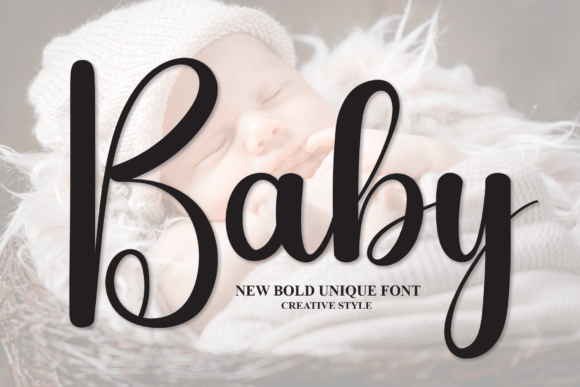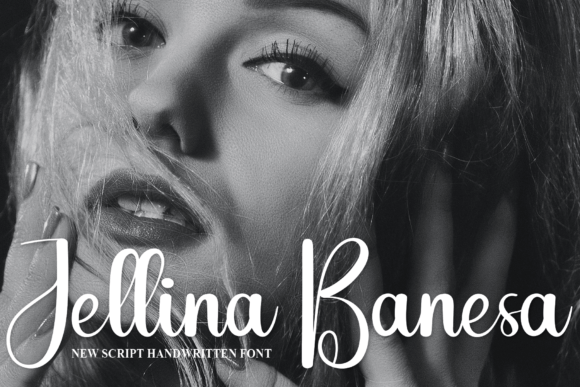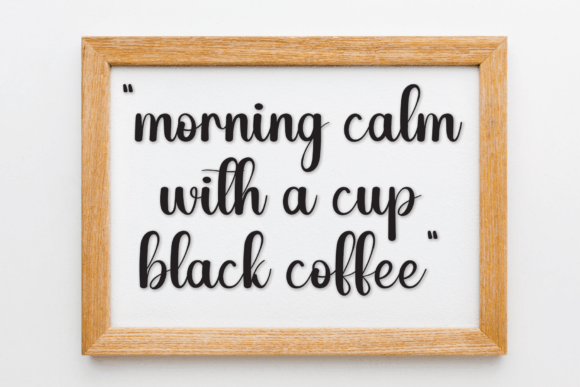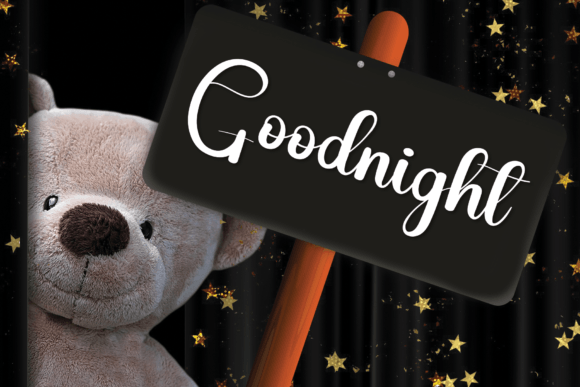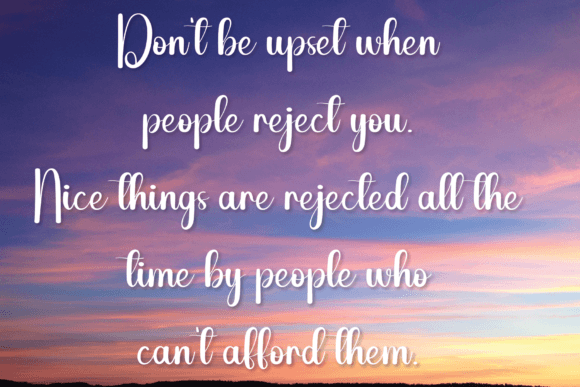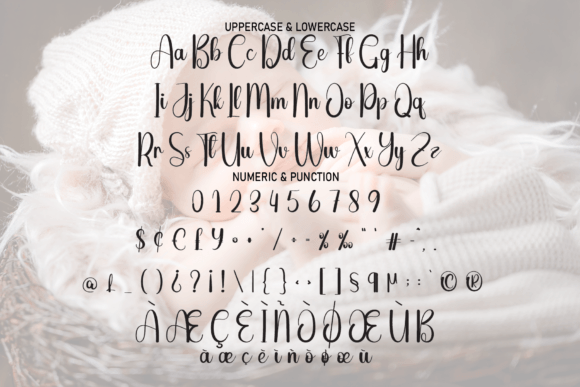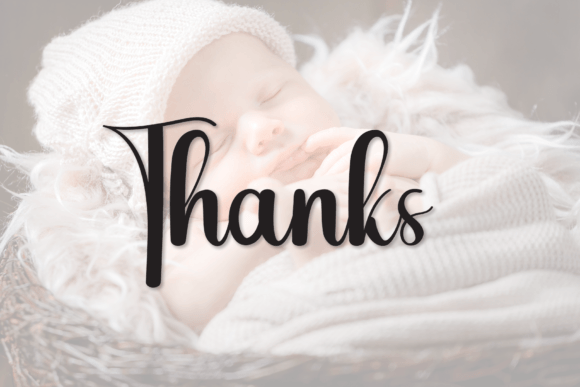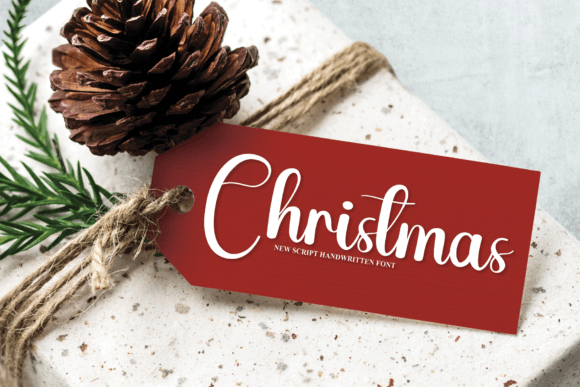
Baby Font
A Sweet and Relaxed Handwritten Typeface
Baby is a versatile handwritten font that brings a fresh and relaxed vibe to any creative project. With clean strokes and gentle curves, this font adds a touch of warmth and charm that feels approachable and modern.
Whether you’re designing personal keepsakes or professional branding, Baby helps you create work that feels polished, inviting, and sincere.
Perfect for Baby Announcements and Invitations
Baby is an ideal choice for baby announcements, shower invitations, and other special celebrations. Its soft and friendly style makes your text feel heartfelt and personal.
Use it to create birth announcements, baby milestone cards, or nursery wall art. The neat, handwritten look keeps your message clear while adding a tender, loving feel.
Pair Baby with pastel color palettes and simple illustrations to design modern and memorable pieces that families will treasure.
Great for Headlines and Social Media
This font also shines in headlines and digital content. Baby’s easygoing style makes your titles stand out while feeling approachable and cheerful.
Use it for blog post headers, social media graphics, or email newsletters. Even at smaller sizes, the letters remain legible and crisp.
Adding Baby to your digital designs helps you build a cohesive style that feels both fresh and friendly.
Perfect for Branding and Packaging
If you want your brand to feel warm and approachable, Baby is the perfect fit. It looks beautiful on product packaging, labels, and logos.
The handwritten look adds character without feeling too formal. Use it alone for a clean, modern look or pair it with a bold sans-serif for extra contrast.
Baby is especially suited for brands focused on children’s products, handmade goods, wellness, and anything that values authenticity and joy.
Versatile and Easy to Use
Baby includes uppercase and lowercase letters, numbers, punctuation, and ligatures. You have everything you need to create polished, professional designs.
It retains its beauty and clarity at any size, whether you’re designing large posters or small labels.
Leave generous spacing around your text to let Baby’s relaxed style stand out and make an impact.
Tips for Warm and Modern Designs
For the best results, pair Baby with soft or neutral color palettes like blush pink, mint green, or pale gray.
Keep supporting graphics simple—subtle icons and clean lines work beautifully alongside Baby’s handwritten feel.
This font looks best when you let its clean, friendly letterforms be the focus of your design.
A Must-Have Font for Your Collection
Baby isn’t just another handwritten font—it’s a design essential for creating work that feels warm, modern, and effortlessly polished.
Whether you’re designing baby announcements, social media posts, packaging, or branding, Baby helps you achieve a look that’s both charming and professional.
Adding Baby to your font library ensures you’ll always have a go-to typeface for projects that need a gentle touch and relaxed elegance.